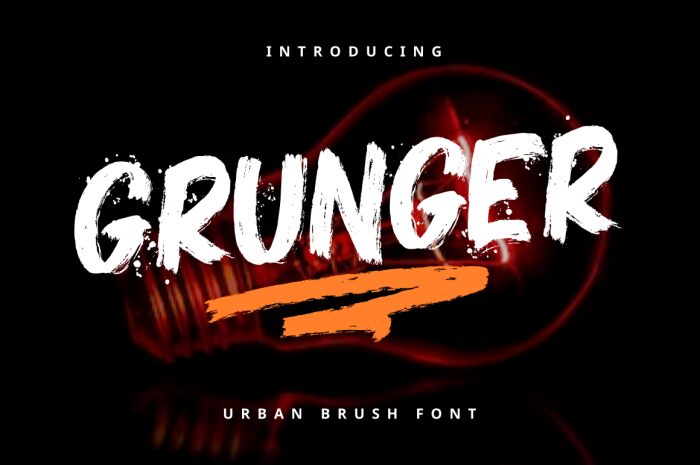
Grunger Swash by Rissyletter Studio exudes raw energy with its bold, aggressive strokes and dynamic swashes. This font captivates with its rugged, handcrafted essence, making it an ideal choice for projects requiring a touch of the rebellious or the artisanal.
Visually arresting, Grunger Swash’s brush style evokes movement and a sense of spontaneity. It's perfect for artistic branding, edgy posters, or urban-themed designs where impact is key. Whether you're crafting logos that demand attention or creating headlines that stand out in a crowd, Grunger Swash effortlessly marries style with substance.
This font isn't just aesthetically pleasing; it transforms ordinary text into something extraordinary with its distinctive character, ensuring your message is not just heard but felt.
Grunger Swash
Rissyletter Studio
Nur Rohman Rizki